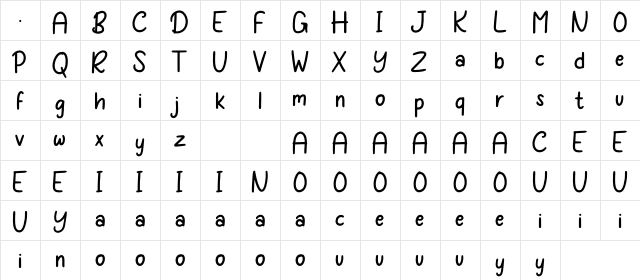
My Kids Handwritten Regular
| Foundry | Abas Creative |
| Designer | Muhammad Farhan Sholeh Ramadhika |
Design Context for My Kids Handwritten Typeface
My Kids Handwritten has an approachable, lighthearted character — its loose, expressive forms are well-suited to children's content, casual branding, and fun-first design.
Great for children's books, toy packaging, family event branding, and casual consumer-facing design.
Font Pairing: Pairs well with a rounded or humanist sans for body copy, maintaining the friendly tone without relying on My Kids Handwritten to carry extended reading.
Pro Tip: Avoid using My Kids Handwritten for long passages of text — it works best for headlines, labels, and short calls to action.